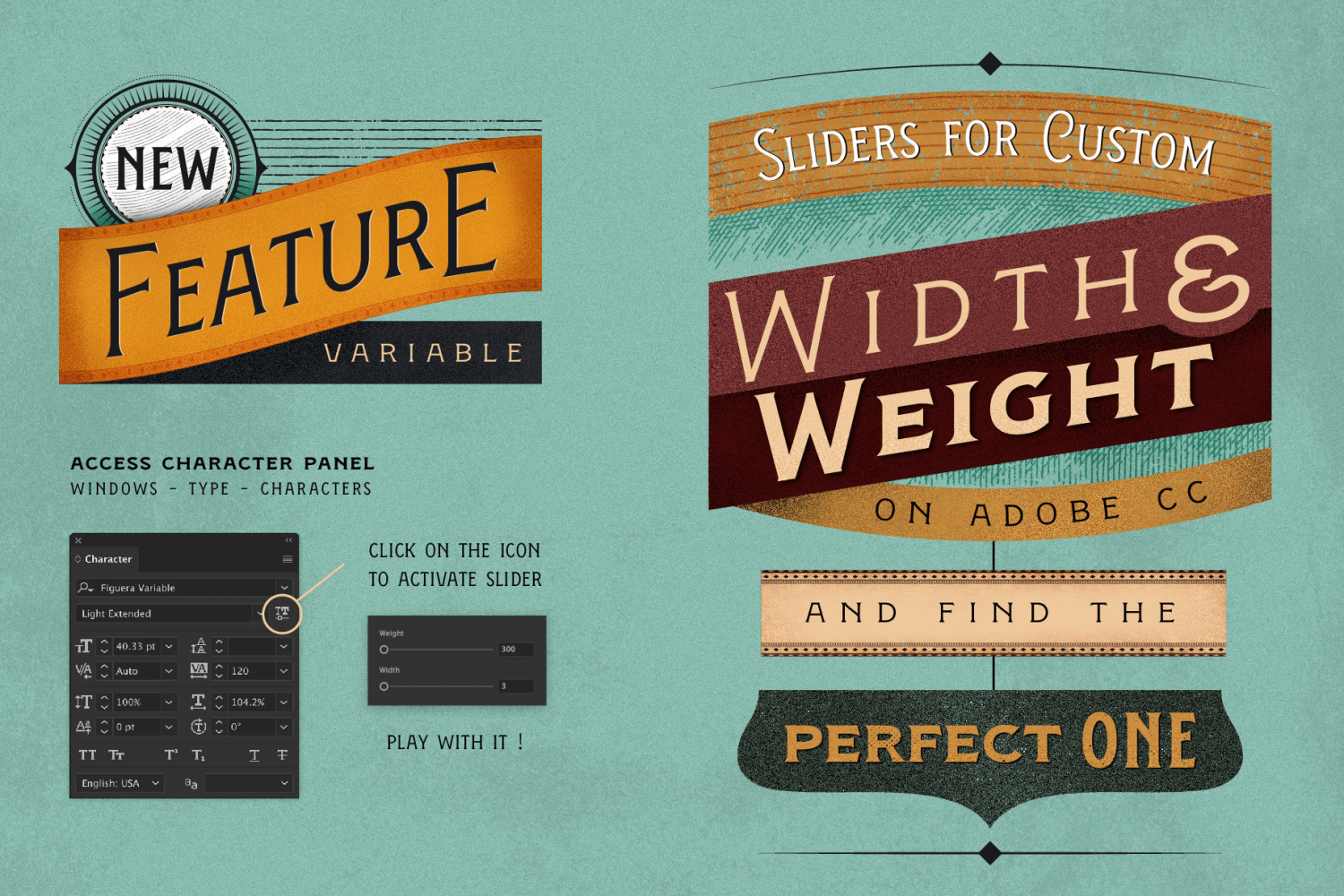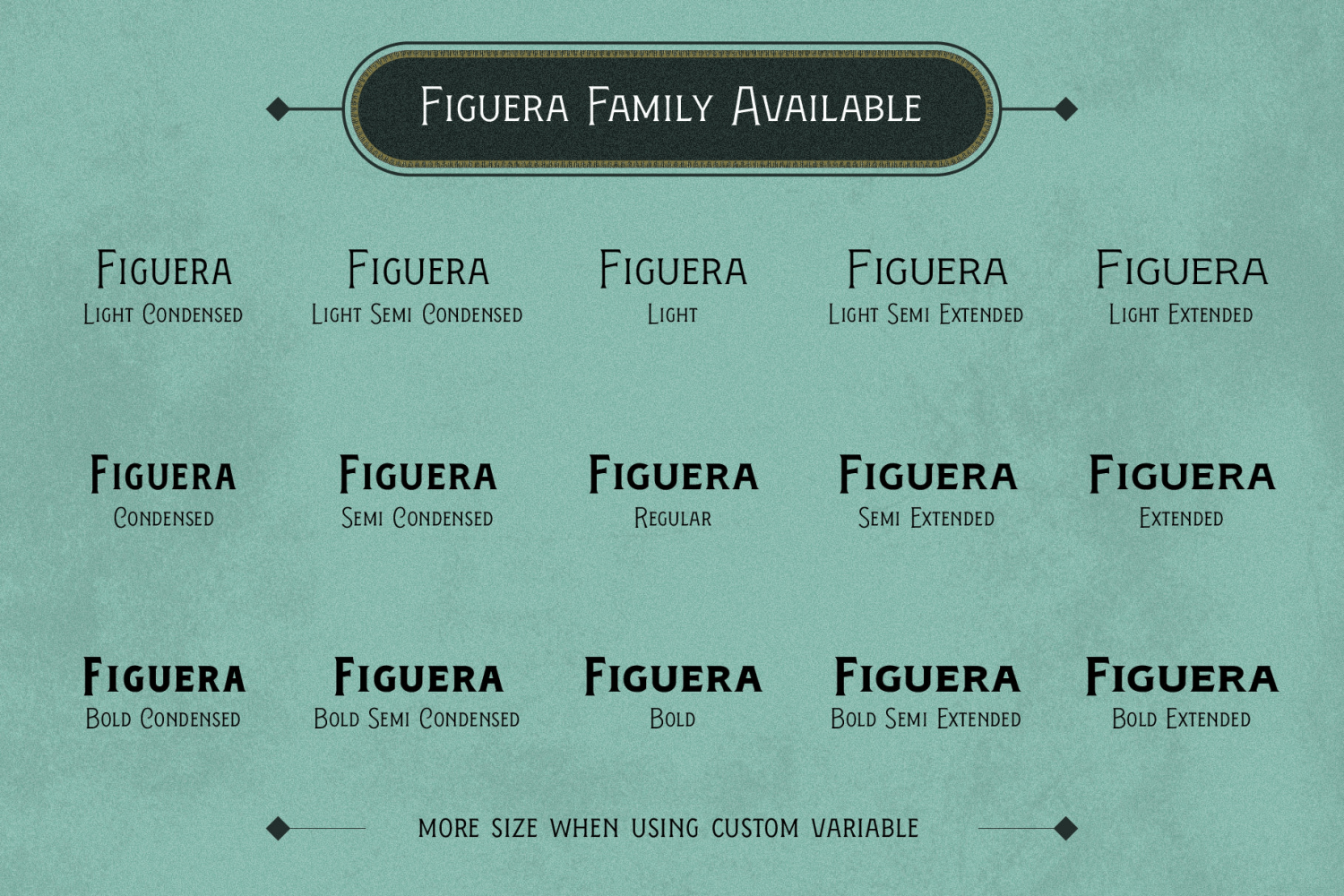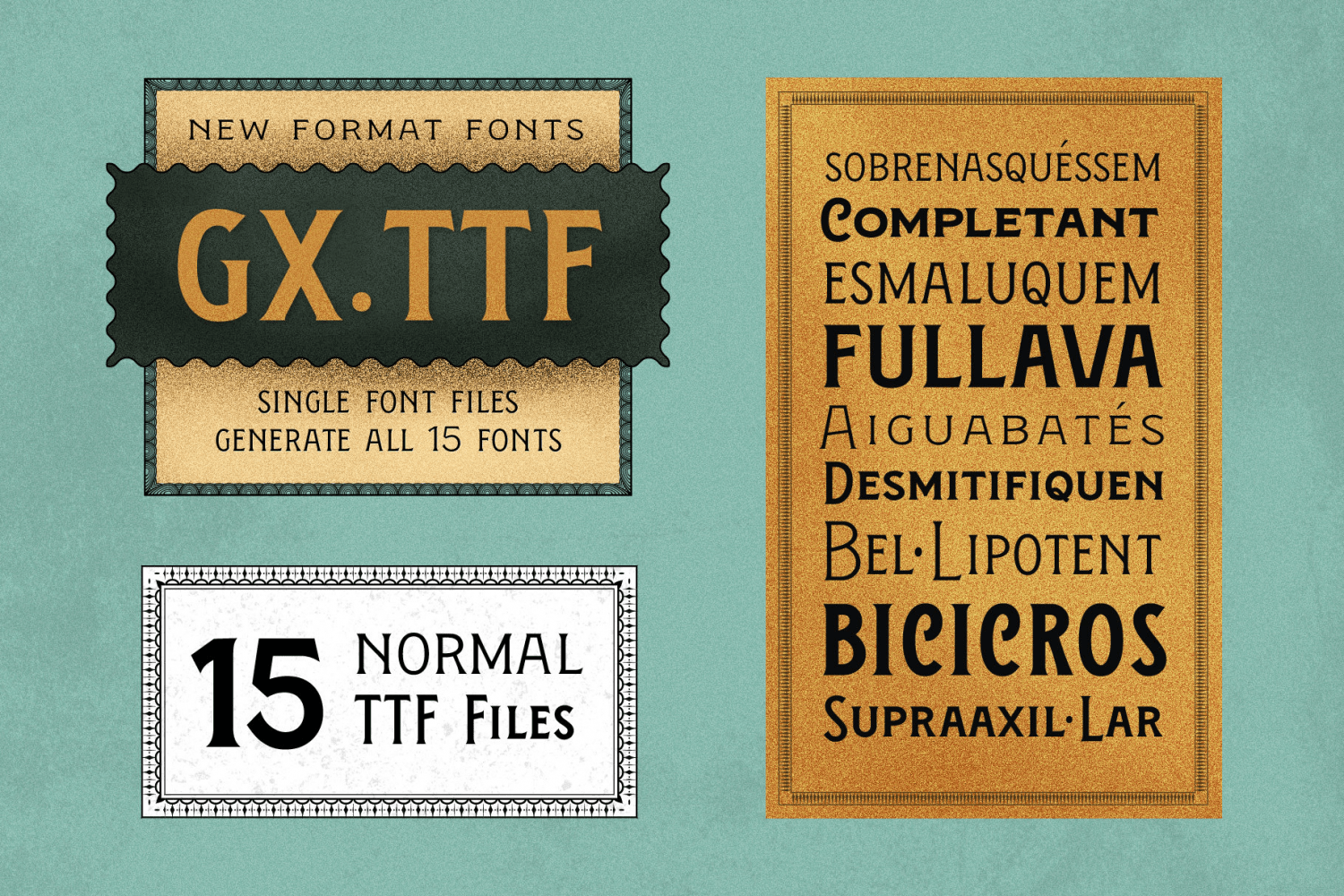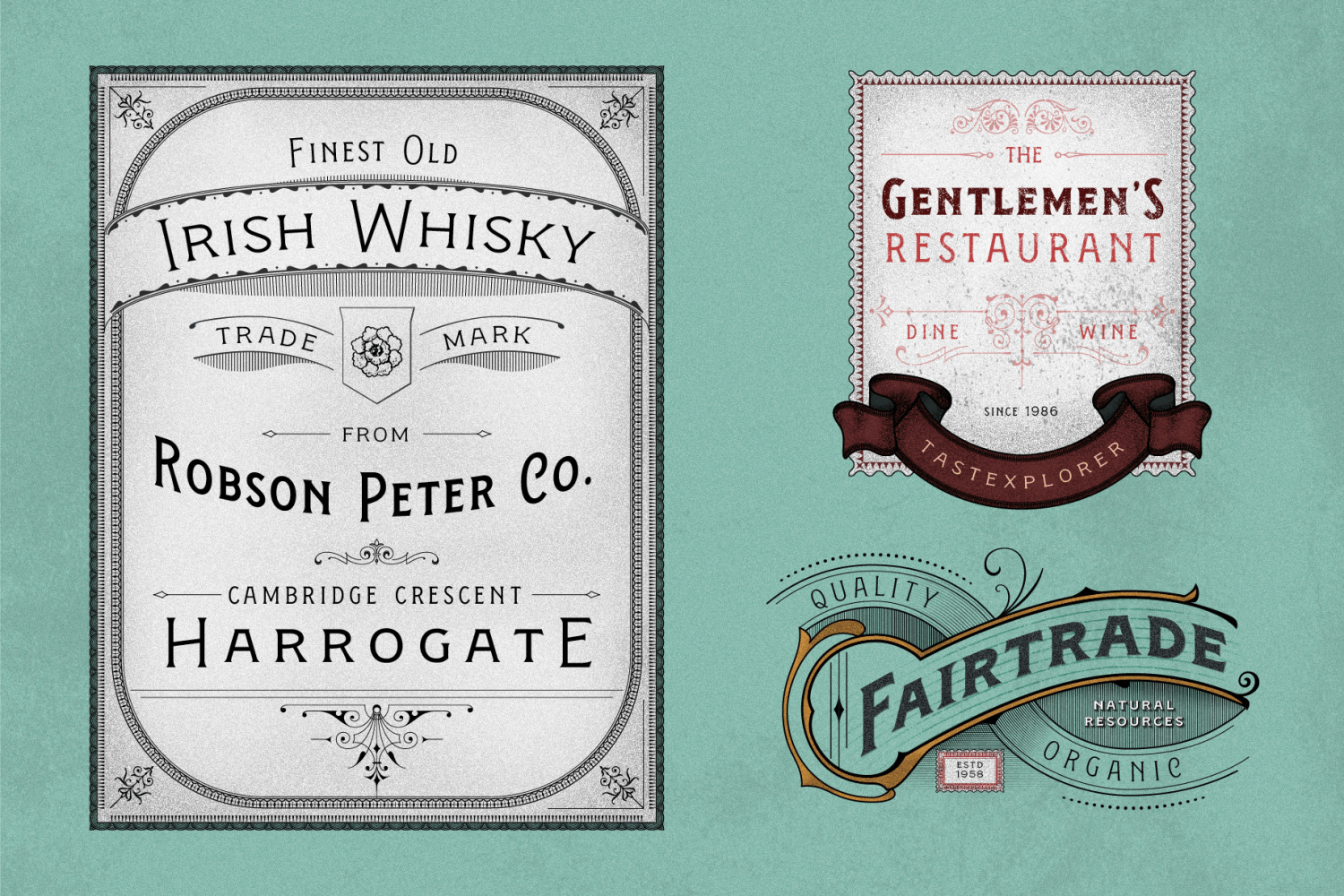
About Figuera Variable
Figuera Variable are inspired with an Serif Victorian style of typefaces. With a different width and weight you can make your design are more fluid within just only use a single family fonts. Comes with different format and also Bonus Borders. It\’s a…